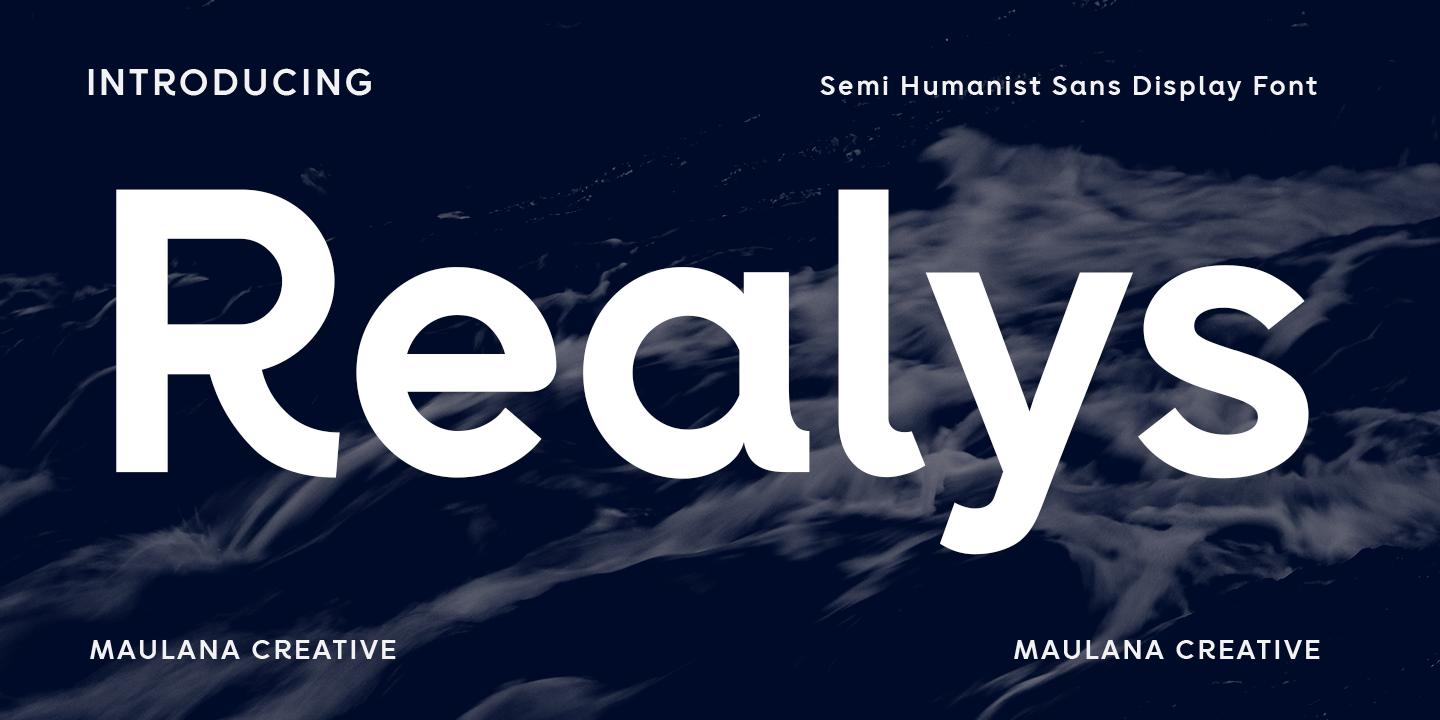
MC Realys Font is ideal for hip-hop album covers, rap battle flyers, urban street art, music streaming platform graphics, DJ promotional materials, nightclub event posters, street fashion branding, and underground music venue signage. This powerful typeface works perfectly in record label logos, mixtape covers, music video titles, and contemporary youth culture marketing campaigns.
What makes MC Realys Font exciting is its authentic hip-hop aesthetic that captures the raw energy and street credibility of urban music culture. The font features bold letterforms, dynamic spacing, and aggressive styling that commands attention while maintaining excellent readability. Its rebellious character and uncompromising attitude make every word feel like a lyrical statement.
MC Realys Font family includes various styles: Regular, Bold, Black, Condensed, Outline, and Shadow variations. Each style maintains the font's signature street authenticity while offering designers multiple options for creating powerful visual hierarchies and impactful typography layouts that resonate with urban audiences.
Creative professionals love MC Realys Font Free Download for its ability to instantly establish credibility within hip-hop and urban design contexts. The font's versatility extends from digital applications like streaming platforms and social media to print materials such as concert posters, merchandise designs, and promotional materials.